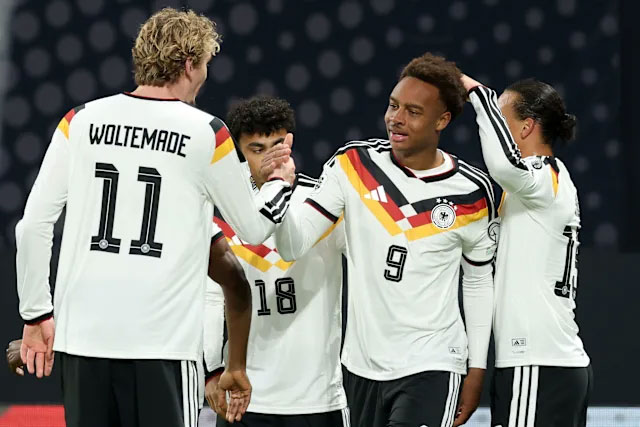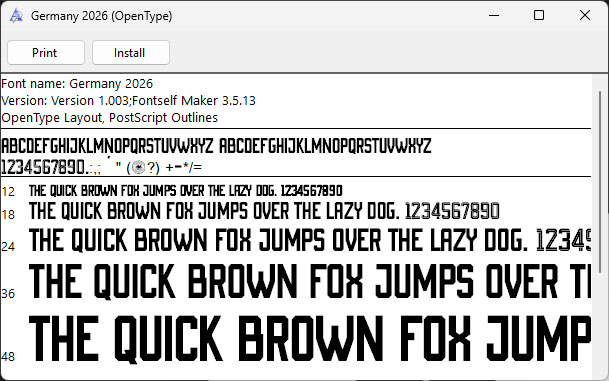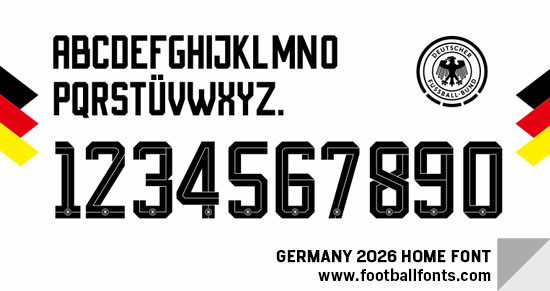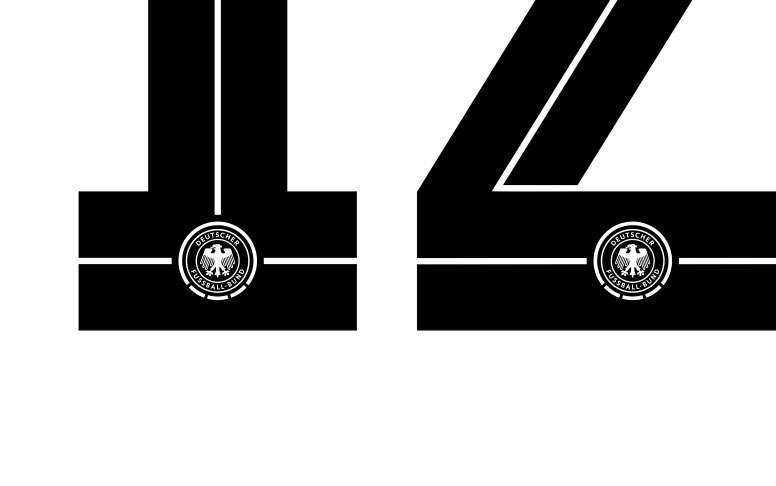
This is the Germany 2026 font. This is special font for their home kit and it will be used in World Cup 2026.
We have font that you can use as Germany 2026 Home font which is general font with all plain letters and numbers (WITHOUT Football Association logo in the bottom of numbers).
We also provide the font in vector file (eps) for more detail football association logo in the bottom of the numbers.